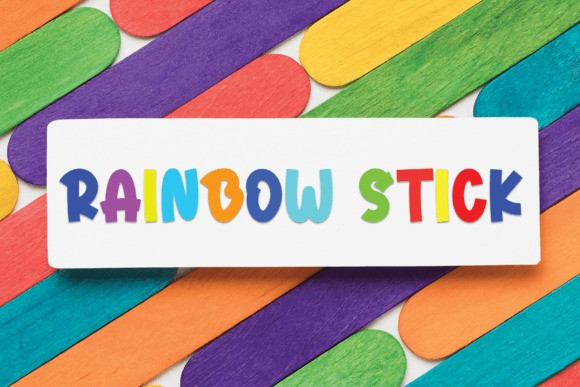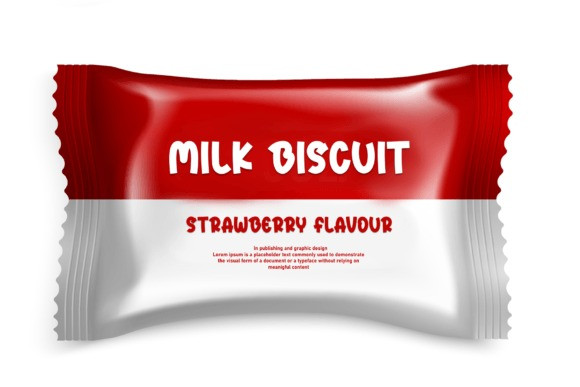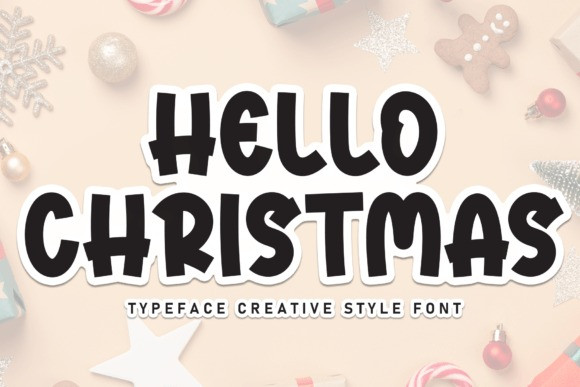
Hello Christmas Playful Font
Hello Christmas Playful Font is a sweet and friendly handwritten font. Its natural and unique style makes it incredibly fitting to a large pool of designs. The only limit is your imagination!